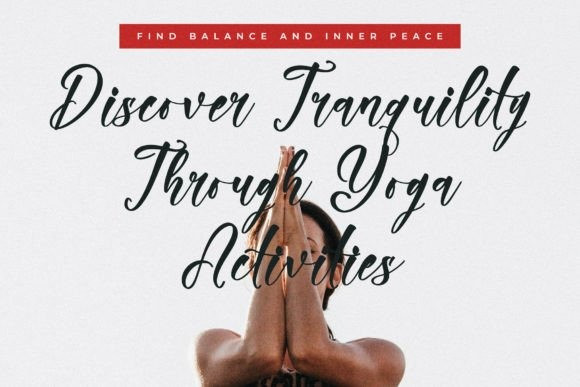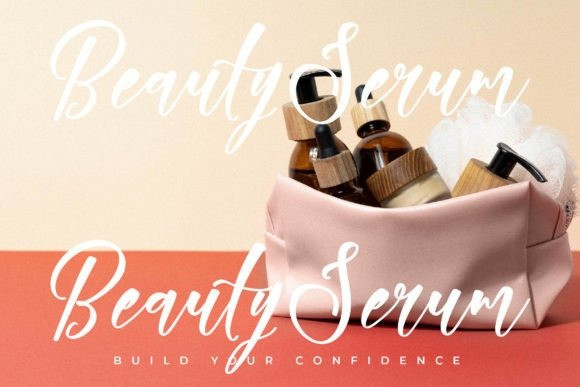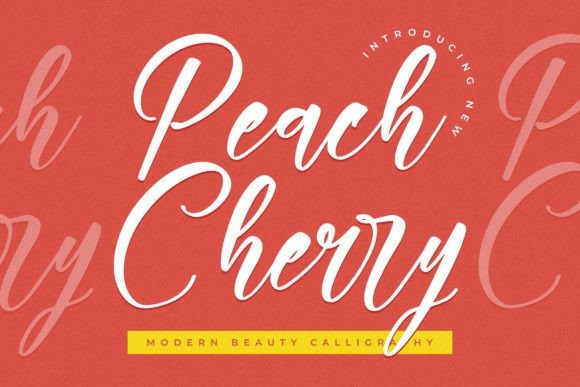
Peach Cherry Font
Peach Cherry Font is a modern calligraphy font, perfect for use of a variety of projects such as logos, branding, homeware designs, product packaging, mugs, quotes, posters, shopping bags, t-shirts, book covers, name cards, invitation cards, greeting cards, label, photography, watermark, special events, and all your other lovely projects that need a beautiful script taste.